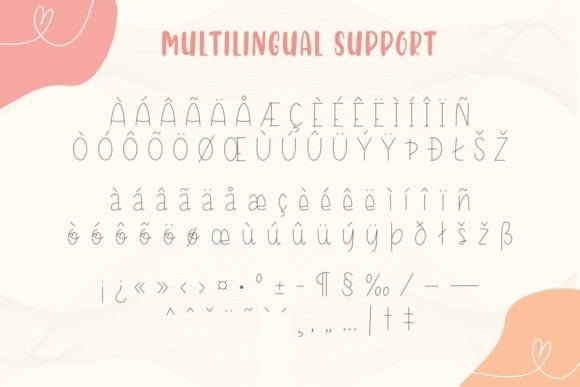
Handwritten Font
Handwritten is a neatly handwritten font. The font can be used for project ideas such as crafts, creating invitations, event posters, and advertisements, to anything that needs a sense of authenticity.